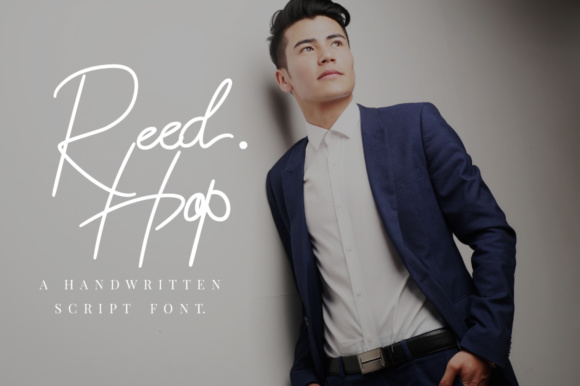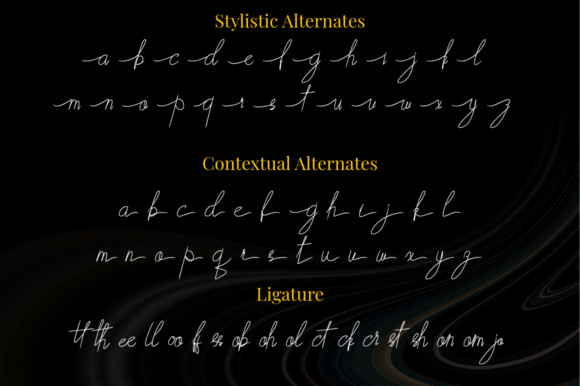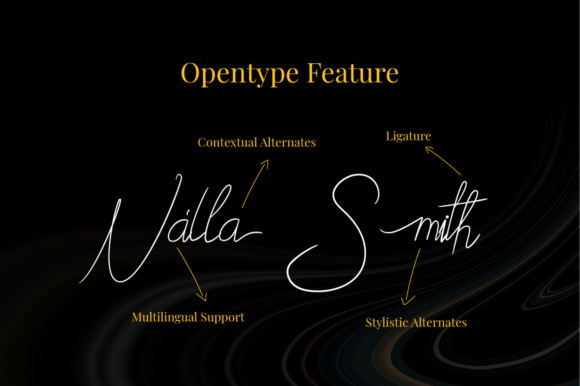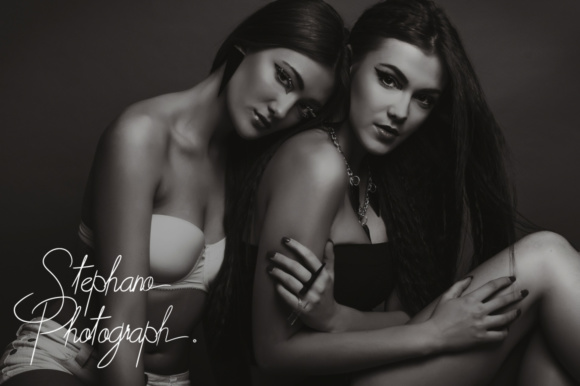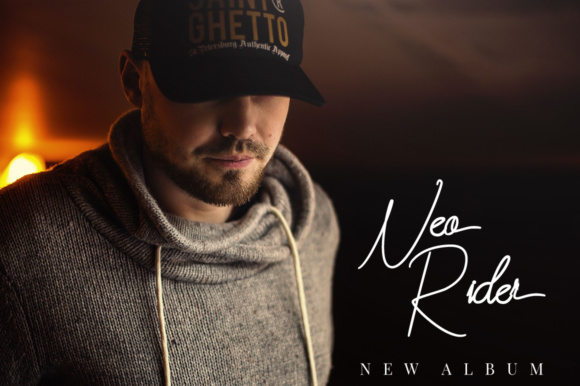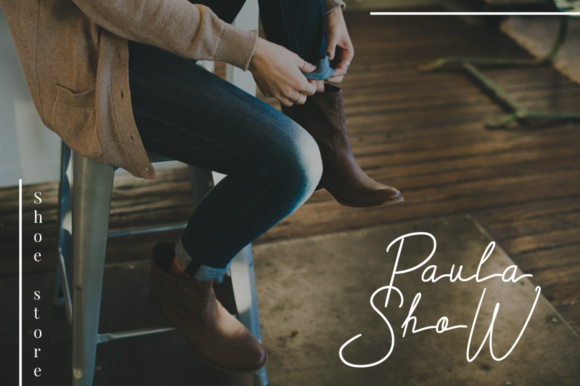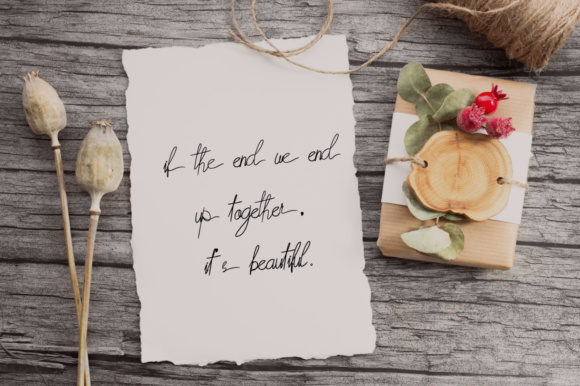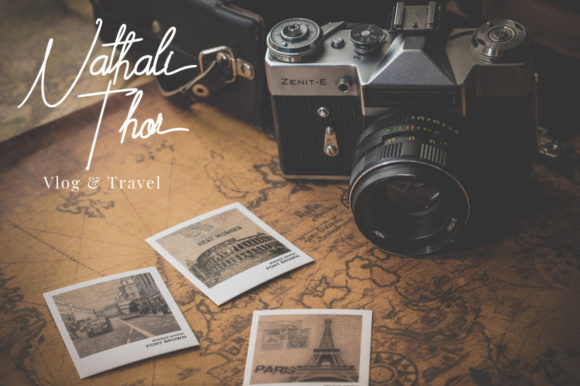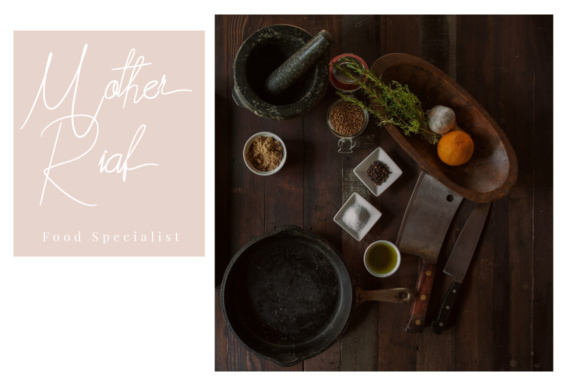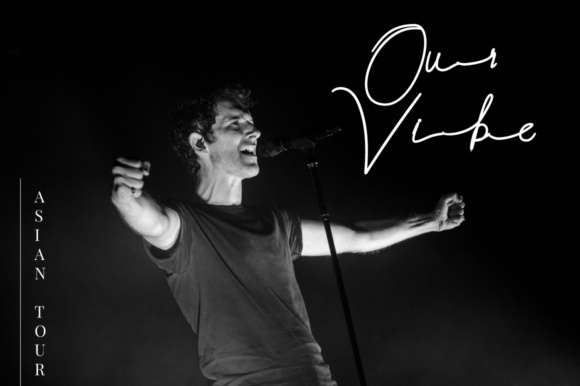
Reed Hop Font
About Reed Hop Font
Reed Hop is a new, fresh handwritten script font. It’s script style make this font look natural, classy and perfect for any awesome projects that need handwriting taste.